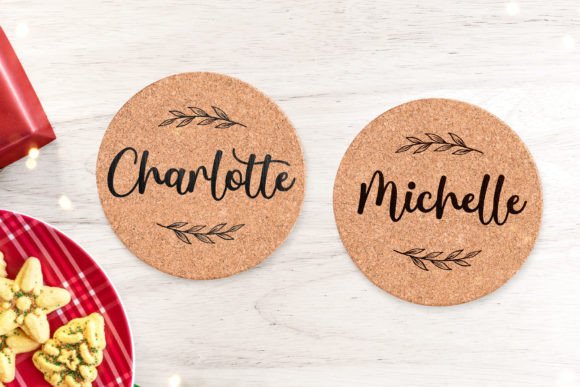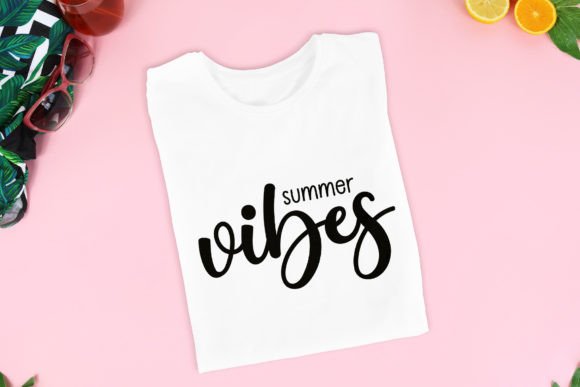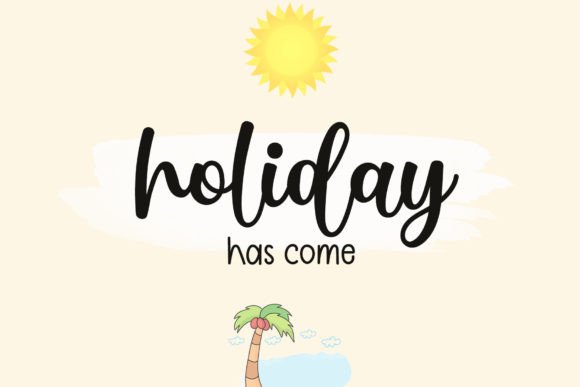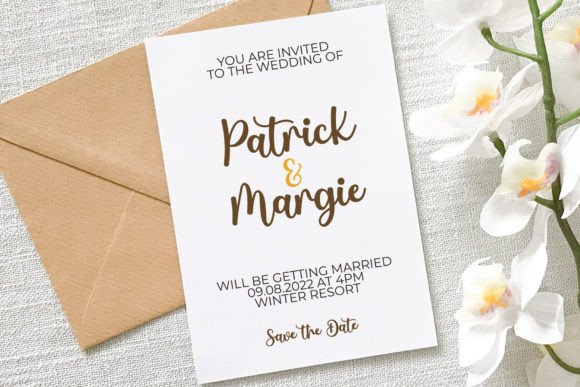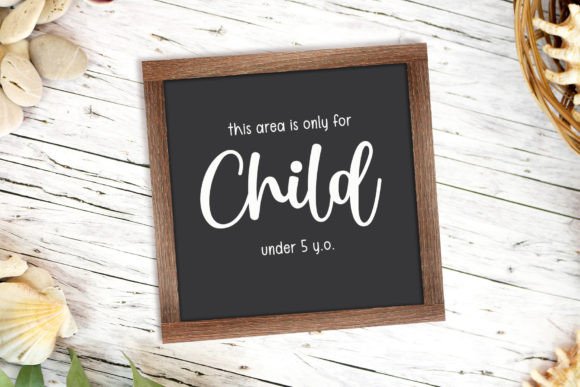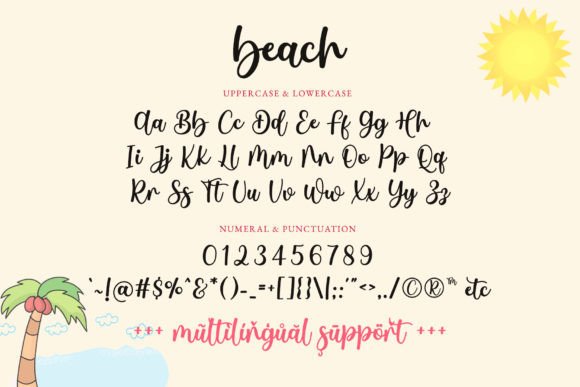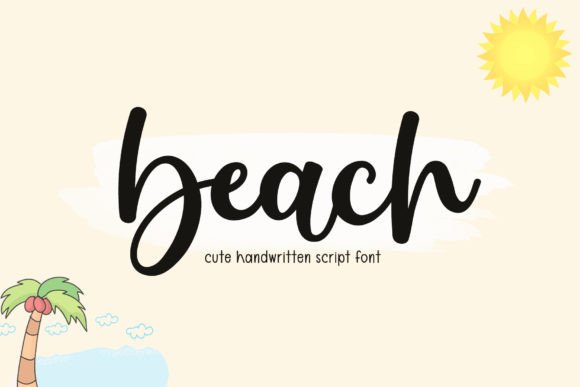
Introducing Beach Font: The Perfect Handwritten Script for Your Designs
Are you looking for a font that adds a simple and cute handwritten touch to your designs? Look no further than Beach Font! This beautiful script font is perfect for a variety of design projects, from wedding designs and invitations to t-shirt designs, crafting, stickers, sublimation, and more.
What is Beach Font?
Beach Font is a handwritten script font that exudes a carefree and playful vibe. Its simple and elegant design makes it perfect for adding a personal touch to your designs. The font is easy to read and works well in a variety of contexts, from formal to informal.
Features of Beach Font
- Simple and Cute: Beach Font has a simple and adorable design that will add a touch of whimsy to your designs.
- Handwritten Script: The font has a handwritten script style that gives it a personal and friendly feel.
- Versatile: Beach Font is perfect for a wide range of design projects, including wedding designs, invitations, birthday cards, t-shirt designs, crafting, stickers, sublimation, and more.
- Easily Readable: The font is easy to read, making it perfect for designs that require a clear and concise message.
Uses of Beach Font
Beach Font is a versatile font that can be used in a variety of design projects. Here are some ideas to get you started:
- Wedding Designs: Use Beach Font to create beautiful wedding invitations, wedding cards, and other wedding-related designs.
- Invitations: Create custom invitations for birthday parties, baby showers, and other special occasions using Beach Font.
- T-Shirt Designs: Add a personal touch to your t-shirt designs with Beach Font. It’s perfect for creating fun and playful designs.
- Crafting: Use Beach Font to create custom stickers, washi tapes, and other crafting supplies.
- Sublimation: Create beautiful sublimation designs using Beach Font. It’s perfect for creating custom mugs, tumblers, and other sublimation projects.
Why Choose Beach Font?
There are many fonts available, but Beach Font stands out from the rest. Here are some reasons why you should choose Beach Font for your designs:
- Unique Design: Beach Font has a unique and adorable design that will make your designs stand out.
Tips for Using Beach Font
Here are some tips for using Beach Font in your designs:
- Pair with Other Fonts: Beach Font works well when paired with other fonts. Try pairing it with a bold font for a fun and playful design.
- Use in Combination with Images: Beach Font looks great when used in combination with images. Try using it with a beach-themed image for a fun and summer-inspired design.
- Experiment with Colors: Beach Font works well with a variety of colors. Try experimenting with different colors to find the perfect combination for your design.
Beach Font is a beautiful and versatile handwritten script font that is perfect for a variety of design projects. Its simple and cute design makes it a great addition to any design. With its ease of use, high-quality design, and affordability, Beach Font is a great choice for designers and crafters alike. So why wait? Download Beach Font today and start creating beautiful designs!